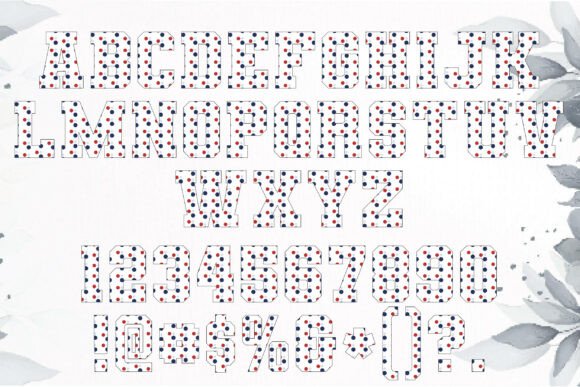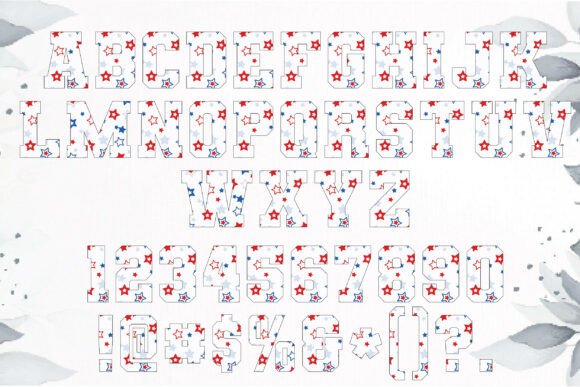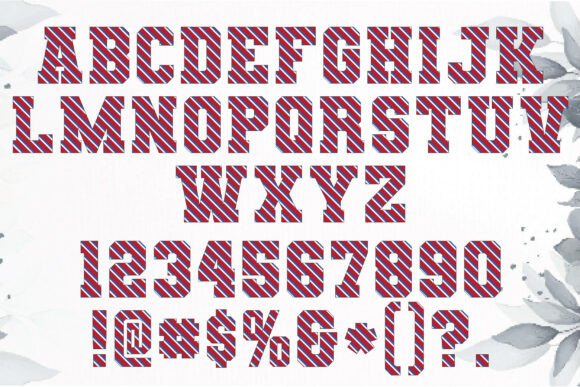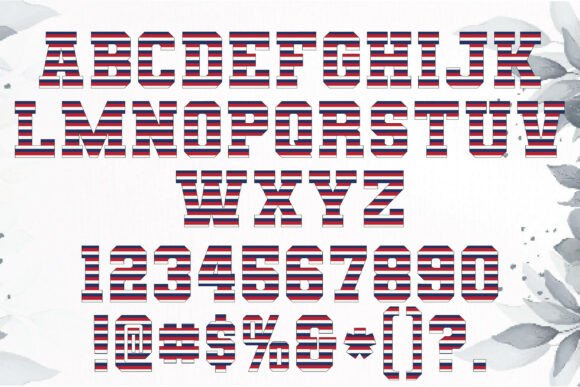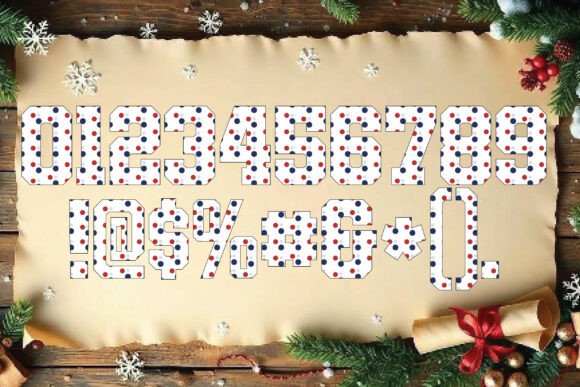
Introduction to Patriotic Charm Font
As a designer, there’s nothing quite like the thrill of bringing a creative project to life. You’re brainstorming ideas, experimenting with colors, and searching for the perfect design resource to make your vision shine. That’s when you stumble upon the Patriotic Charm Font – a bold, trendy, and eye-catching alphabet that’s sure to capture the essence of American spirit.
Perfect for 4th of July celebrations, patriotic t-shirt designs, and varsity projects, this font is a high-quality design asset that’s sure to add a fun and energetic touch to any creative project. With its sporty varsity-style letters and patriotic details, the Patriotic Charm Font is a must-have for designers who want to create eye-catching and memorable designs with ease.
Patriotic Charm Font
- Unique and elegant design perfect for creative projects, including invitations, greeting cards, and other patriotic-themed designs.
- Perfect for adding a touch of patriotic charm to your designs, with a unique and stylish aesthetic.
Honest Review: Patriotic Charm Font
As a designer, I’m always on the lookout for high-quality design resources that can elevate my creative projects. The Patriotic Charm Font caught my attention, and I decided to give it a try.
Here’s what works well: ✨ The font is beautifully designed, with intricate details that give it a charming, vintage feel. It’s perfect for patriotic-themed projects, such as holiday invitations, social media graphics, or even a website redesign. The font is also super versatile, and can be used for both digital and print designs.
Some limitations I’ve encountered: ⚠️ The font doesn’t come with a transparent background, which can be a bit restrictive when designing for digital projects. Additionally, the font family is relatively small, which means you may need to use a few different fonts to achieve the desired look.
Here are some key features:
- Beautiful, vintage-inspired design
- Perfect for patriotic-themed projects
- Super versatile
Tips for Getting the Most Out of Patriotic Charm Font
Use the font on a transparent background to create a clean and modern design. Experiment with different font sizes and colors to add depth and interest to your design. You can also use the font in combination with other design resources to create a unique and eye-catching design.
The Patriotic Charm Font is perfect for a variety of creative projects, including patriotic-themed designs, holiday cards, and summer-themed graphics. You can also use it to create a free download, such as a printable quote or a social media graphic, to share with friends and family.
The Patriotic Charm Font is a high-quality design resource that is perfect for designers and non-designers alike. It’s free to download and can be used in a variety of creative projects. Whether you’re looking to add a touch of patriotism to your design or simply want a unique and eye-catching font, the Patriotic Charm Font is a great choice.